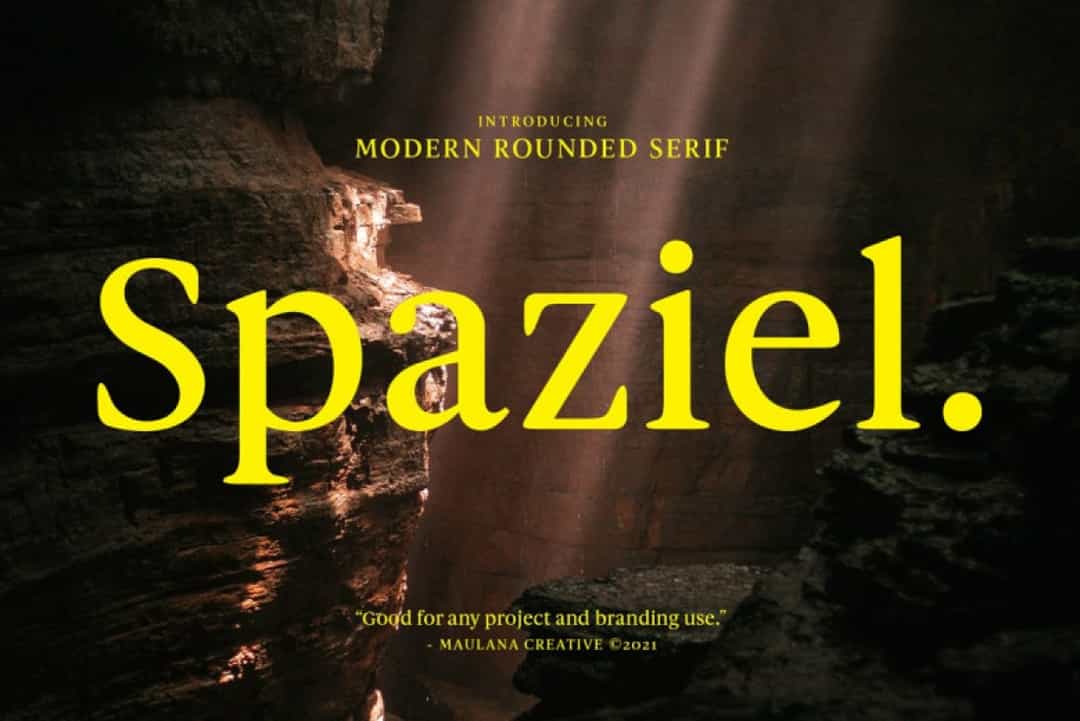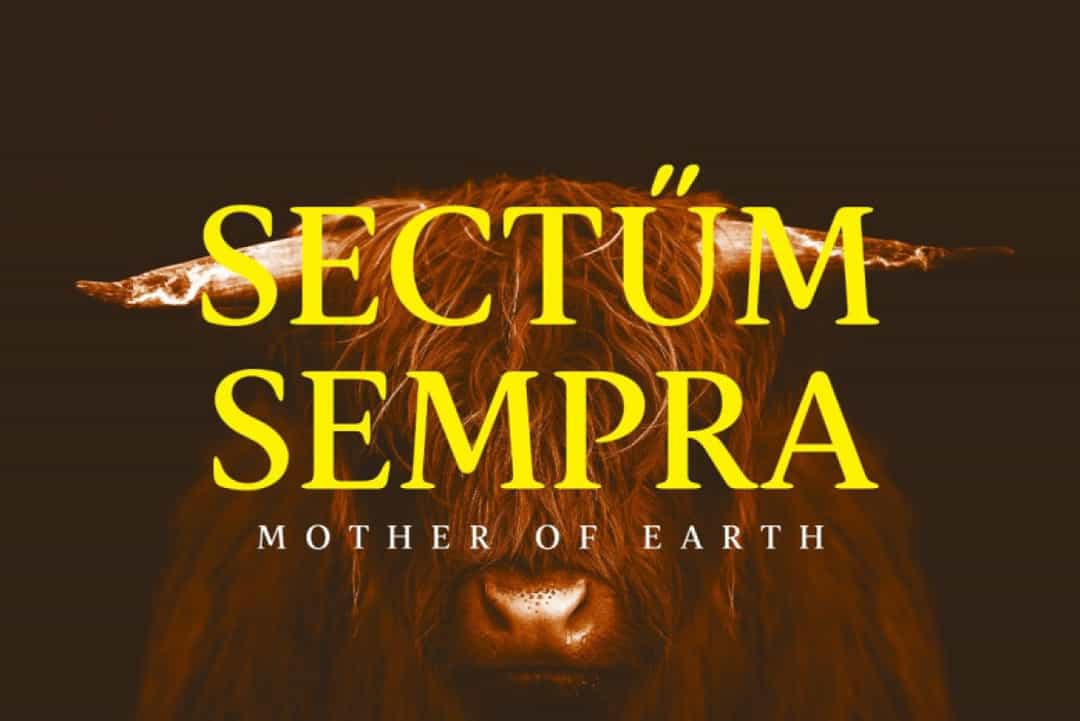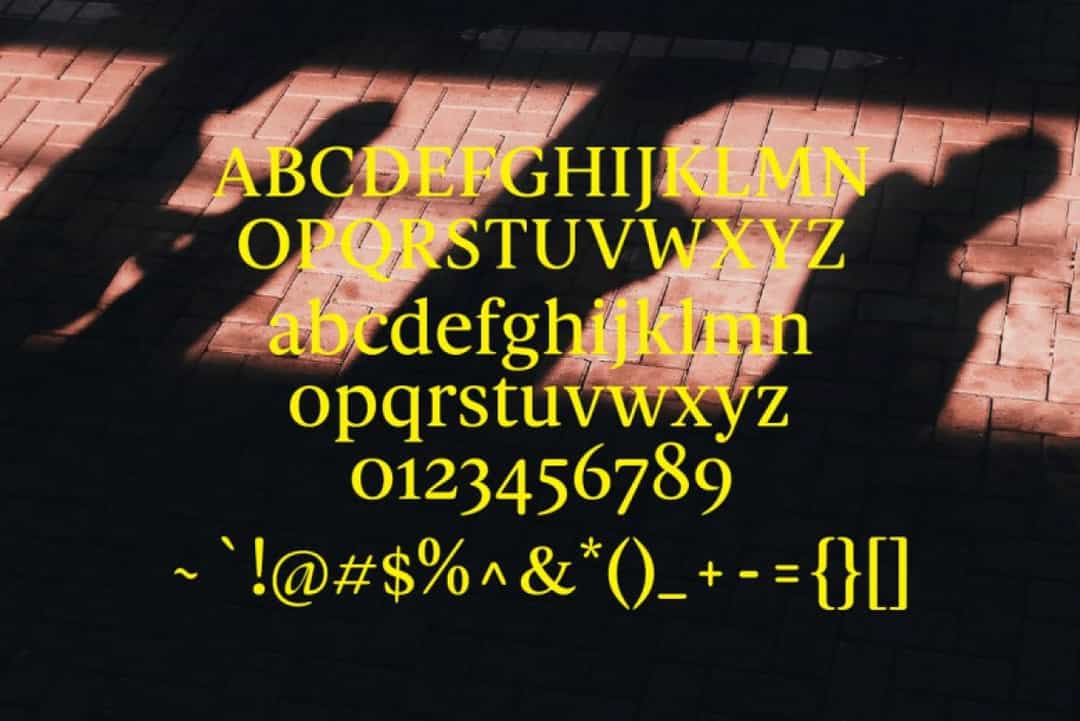
Spaziel is an updated circular serif typeface with a regular round stroke and playful character to give any task an additional spark of imagination. Support for over 100 languages makes Spaziel font ideal for logo design, social media posts and movie/book titles – not forgetting any text of any length (both short or long text) using script typeface!